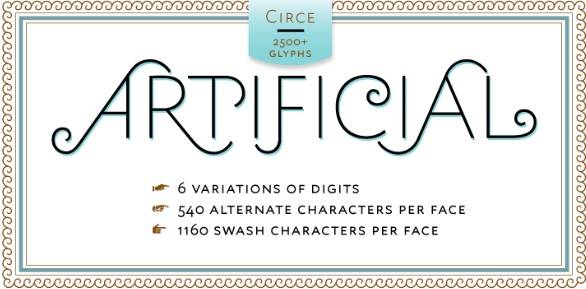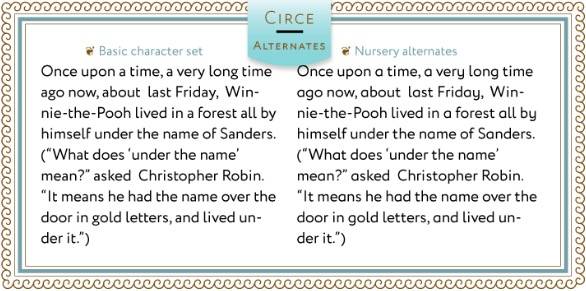
Circe font is a great Sans serif typeface and with a large character set of Circe font allows designers to not only use it for almost all European languages (based on the Latin and Cyrillic alphabet) but also contains many alternatives, and options for plywood organized in stylistic sets that make the font look completely different.
This Sans font is good both for display purposes such as magazine headings, posters,.. and customizing text in small sizes.
Circe Sans-Serif font